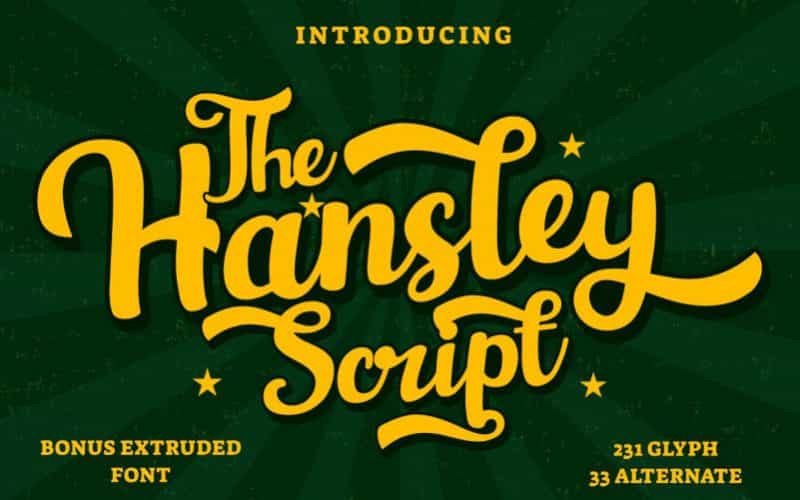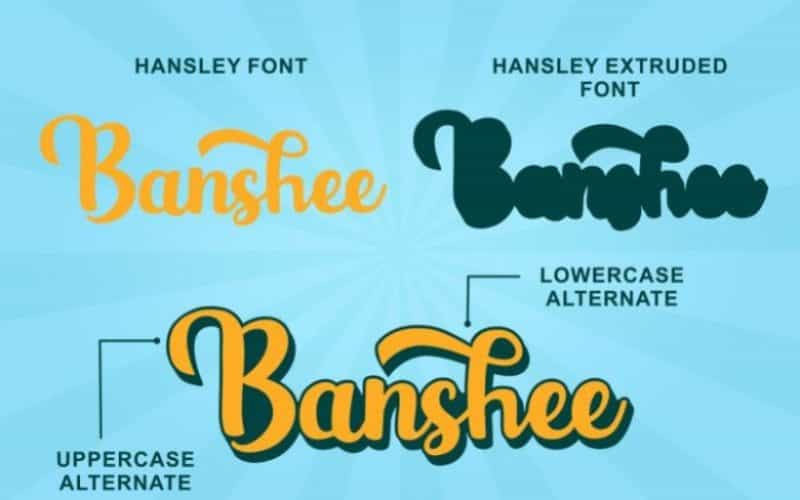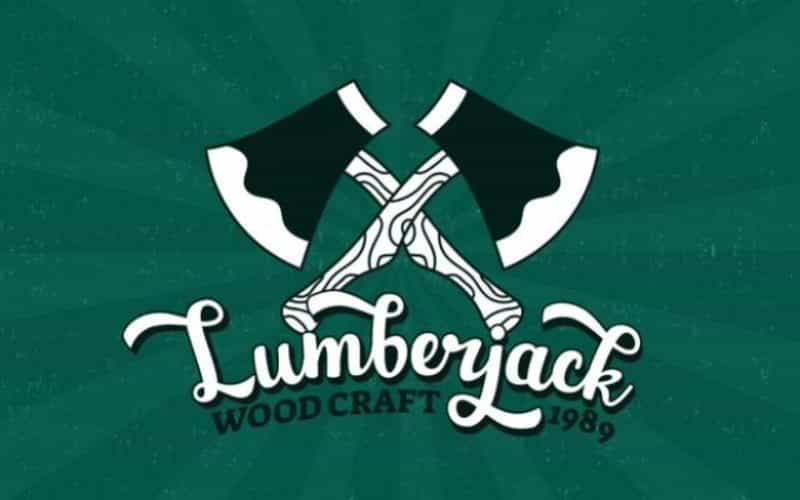
Hansley Script is designed based on the Retro style and the blending of Hand Lettering style. Each and every letter has been underlined or typed in such a way to make your text to be as beautiful as possible. I hope this has informed or inspired you from your work. This font is encoded in PUA, so you can use extras from the character map in most of the design programs.